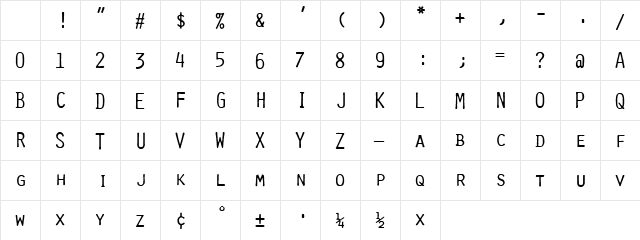
Selectric Orator has a distinctly futuristic character, with geometric precision and clean angles that feel at home in technology, gaming, and sci-fi contexts.